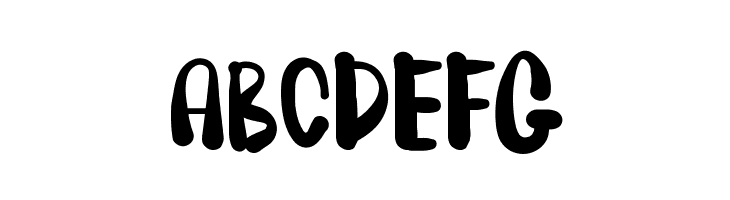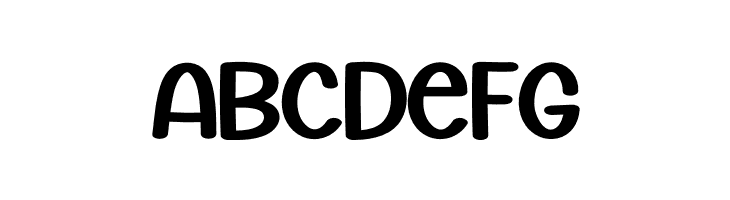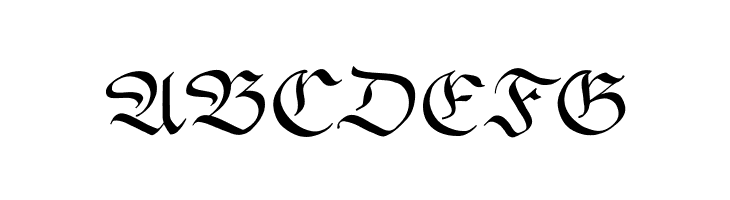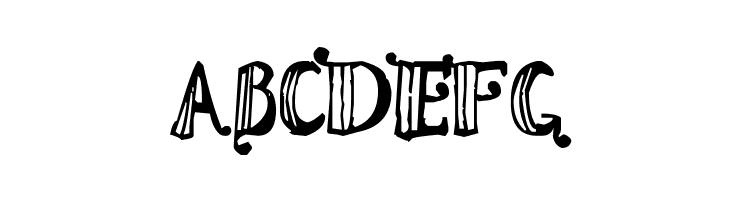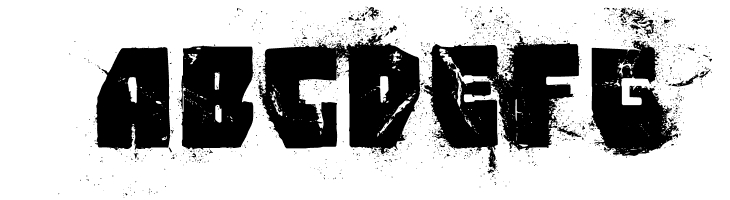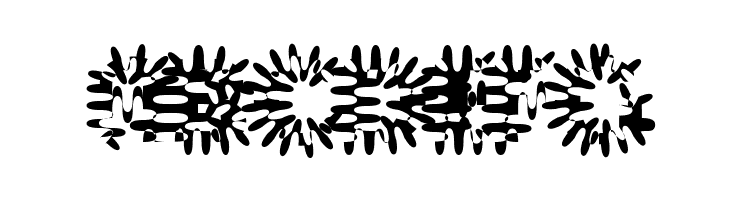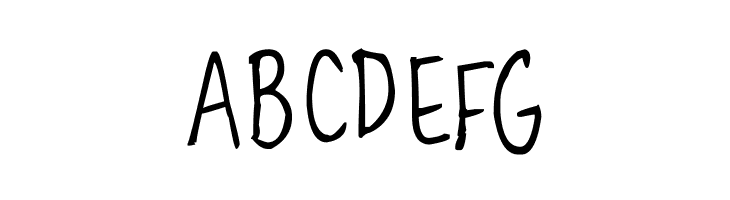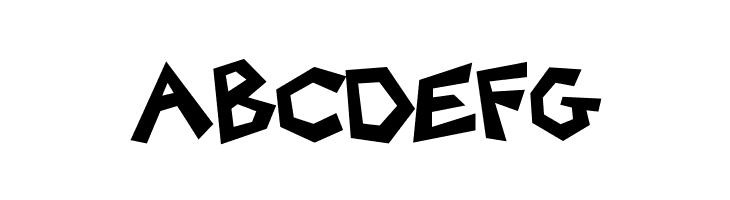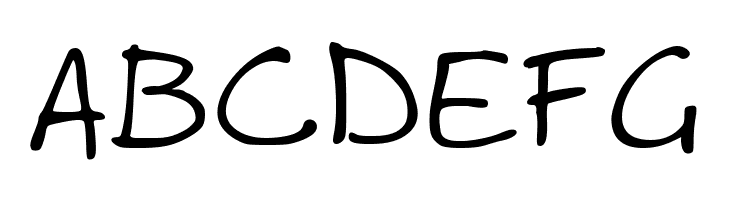
Rounded, playful sans-serif with a handwritten feel.
A playful, high-contrast decorative font with a vintage, whimsical style.
A playful, edgy font with a paper cutout style and jagged edges.
A bold, playful handwritten font with thick strokes and rounded edges.
A bold, distressed font with a grungy, textured appearance.
Abstract, spiky, and highly decorative display font.
A traditional blackletter font with ornate, angular letterforms and high contrast.
A lively handwritten font with dynamic strokes and a playful, artistic style.
A playful, informal handwritten font with irregular strokes and a whimsical style.
A playful, bold font with a perforated, stamp-like edge.